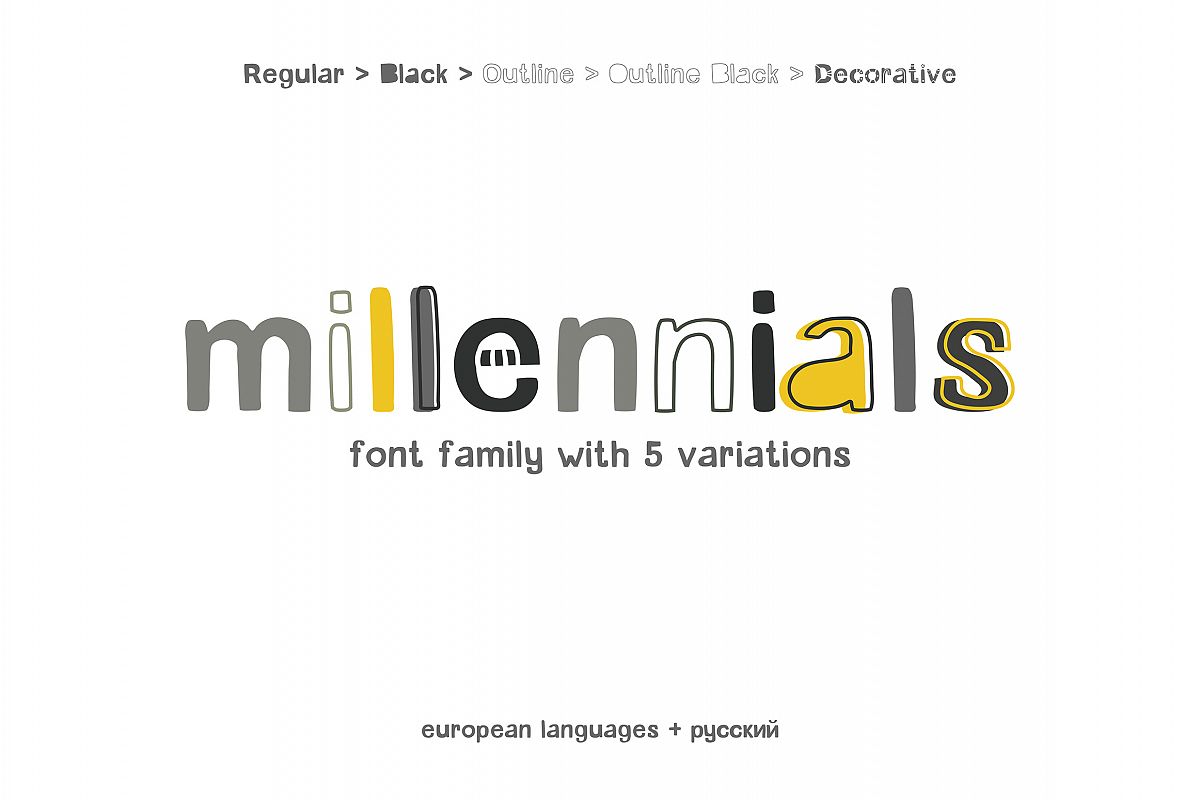
Millennials Font Family
I’m pleased to introduce my new display hand drawn font family Millennials!
Millennials comes in 5 styles: regular, black, outline, outline black and decorative.
You can combine those variations to make stunning designs and create a unique look. This font best uses for headings, flyer, poster, greeting cards, product packaging, book cover, printed quotes, logotype, apparel design, album covers, etc.
Each of the font variations include uppercase, lowercase, numbers and punctuation marks.
In addition to English, the Millennials font supports main European Languages and it had Cyrillic letters.